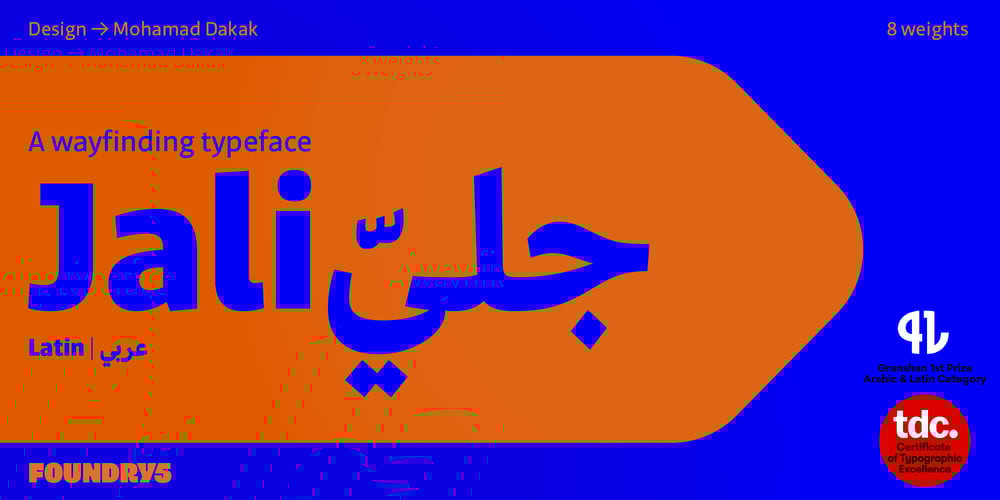
Jali Arabic
Jali Arabic font
Jali Arabic Font Family was designed by Mohamad Dakak and published by Foundry5. Jali Arabic contains 8 styles and family package options. Jali is a humanist sans serif typeface particularly suited for wayfinding. Jali comes in versions that support Arabic, Greek, and Latin.The name ‘Jali’ means clear in the Arabic language. The design of Jali reflects the ethos of its name. The combination of low-contrast strokes, ample counters, dots, and distinguishable marks make Jali a versatile typeface. With its humanistic voice and clear letterforms, Jali aims at offering a warm and efficient reading experience. Similar to other wayfinding type families, Jali is also well suited for demanding typographic environments.Jali has received two renowned awards: TDC Certificate in Typographic Excellence and Granshan’s 1st Prize, Arabic & Latin Category in 2019.